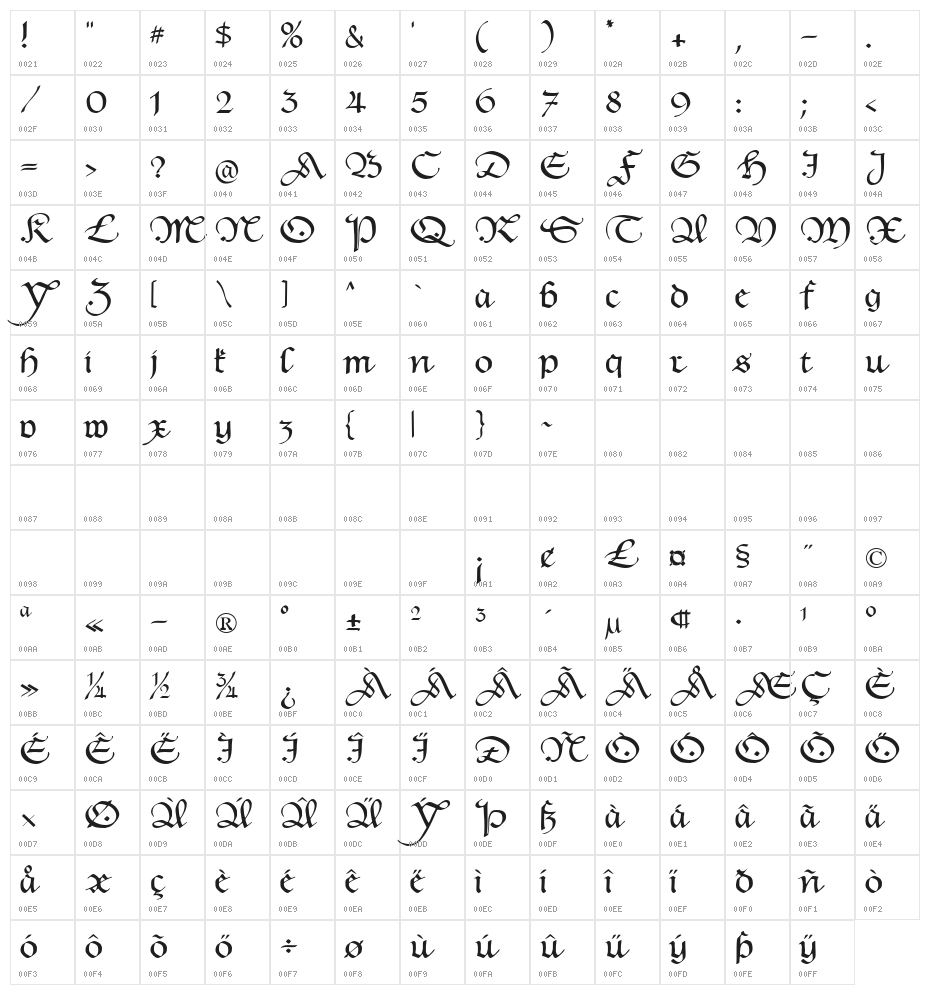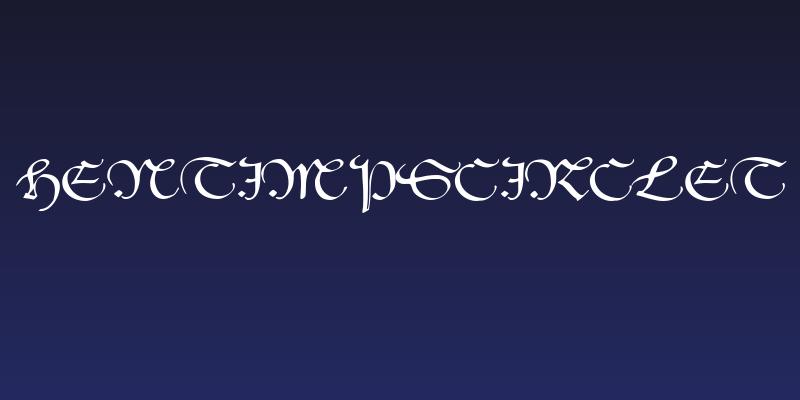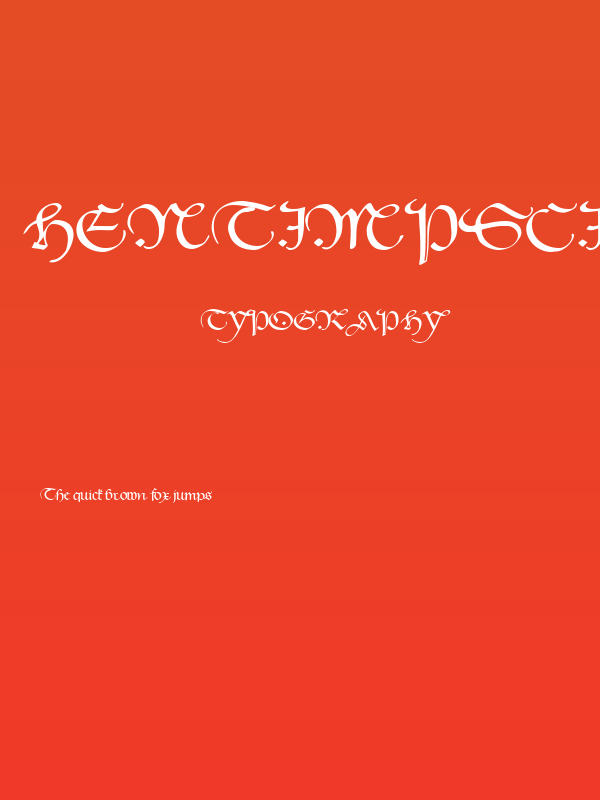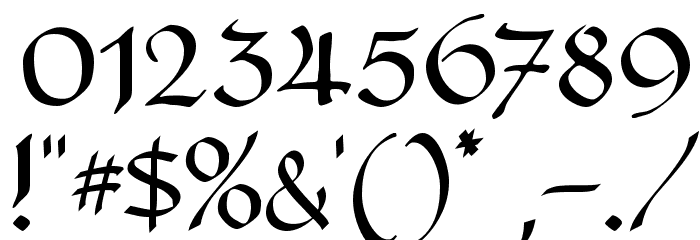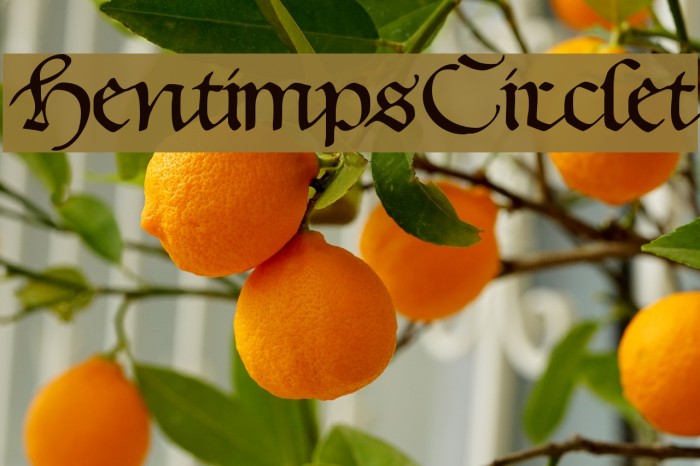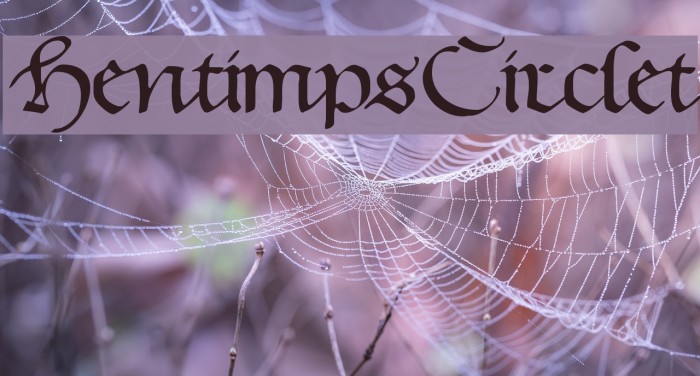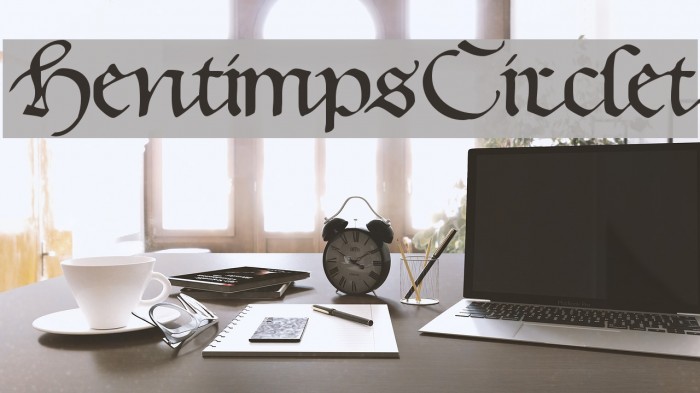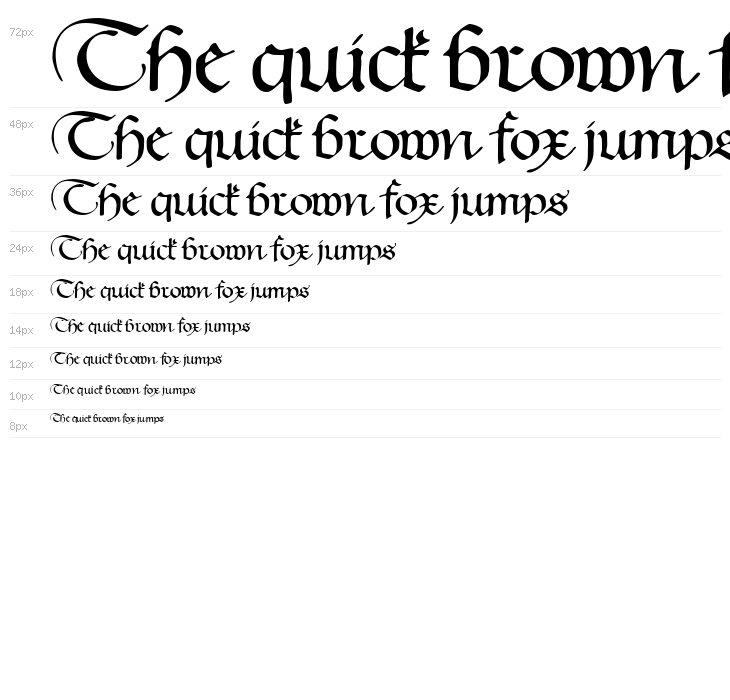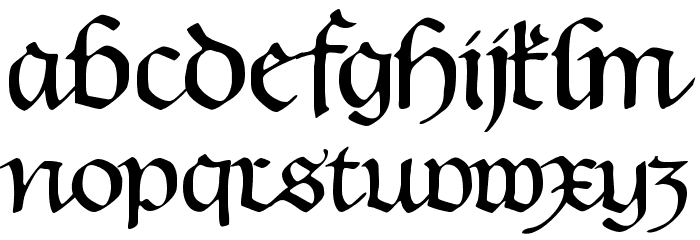
HentimpsCirclet Font
HentimpsCirclet Description
This font features an ornate and intricate design, reminiscent of medieval calligraphy. The uppercase letters are characterized by elaborate swirls and flourishes, giving them a decorative and artistic appearance. The lowercase letters maintain a similar style but are slightly more restrained, allowing for better readability. The numerals are bold and consistent with the overall theme, featuring unique curves and angles. Special characters are equally detailed, enhancing the font's decorative nature. This font is ideal for projects that require a historical or fantasy aesthetic, such as invitations, posters, or themed branding.
| Proposed Projects | Ideal for fantasy-themed designs, historical event invitations, or decorative branding. |